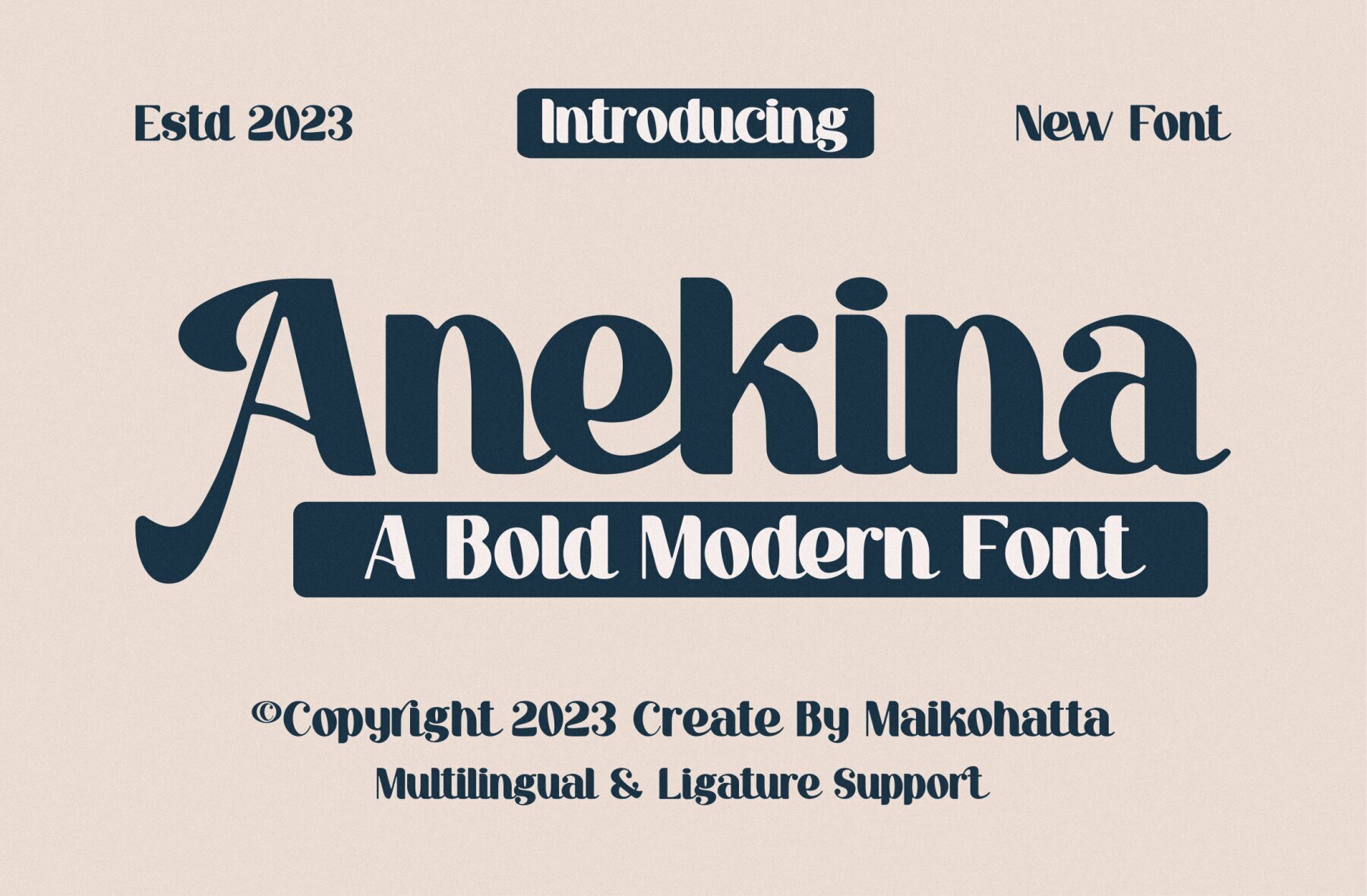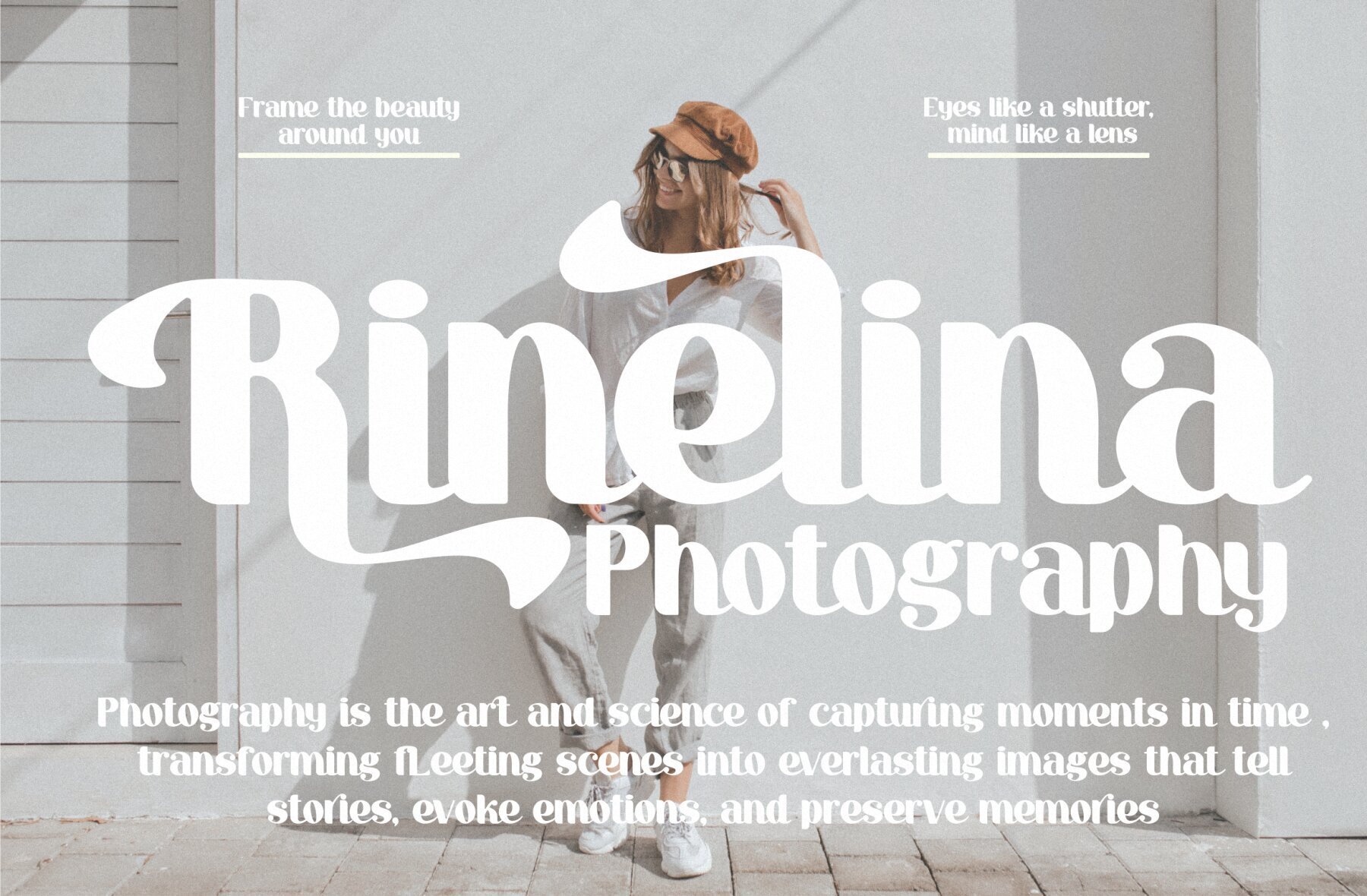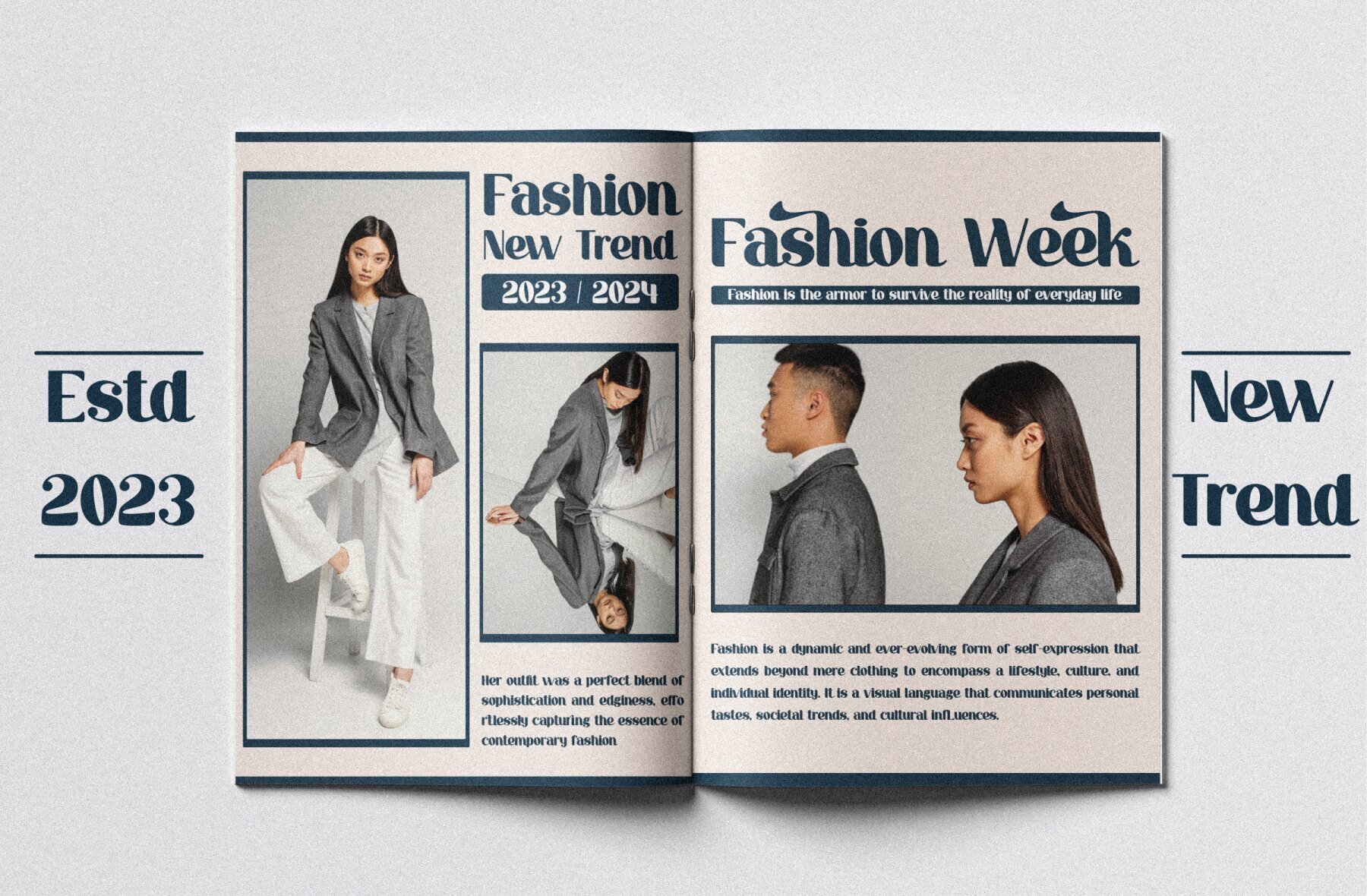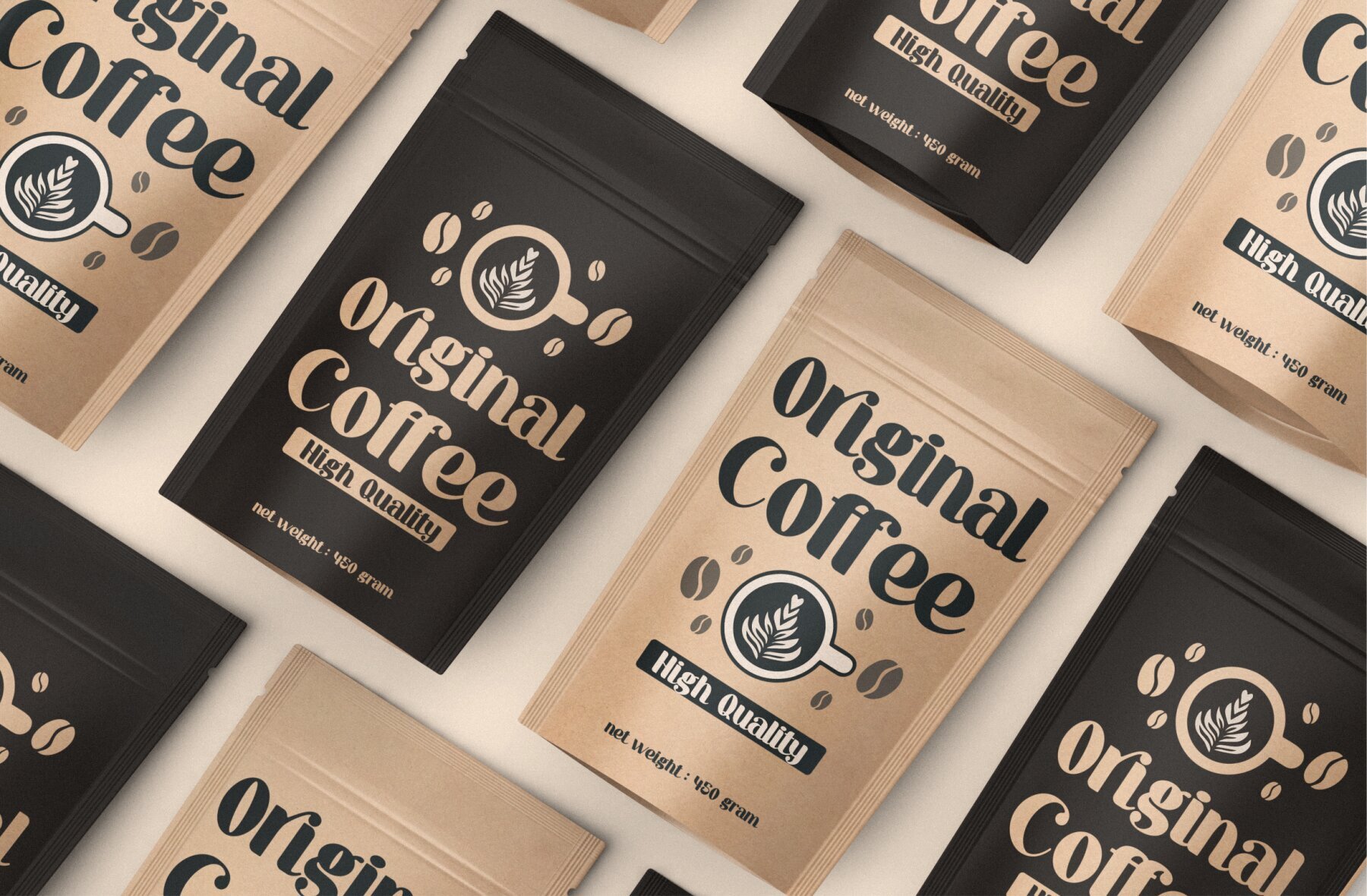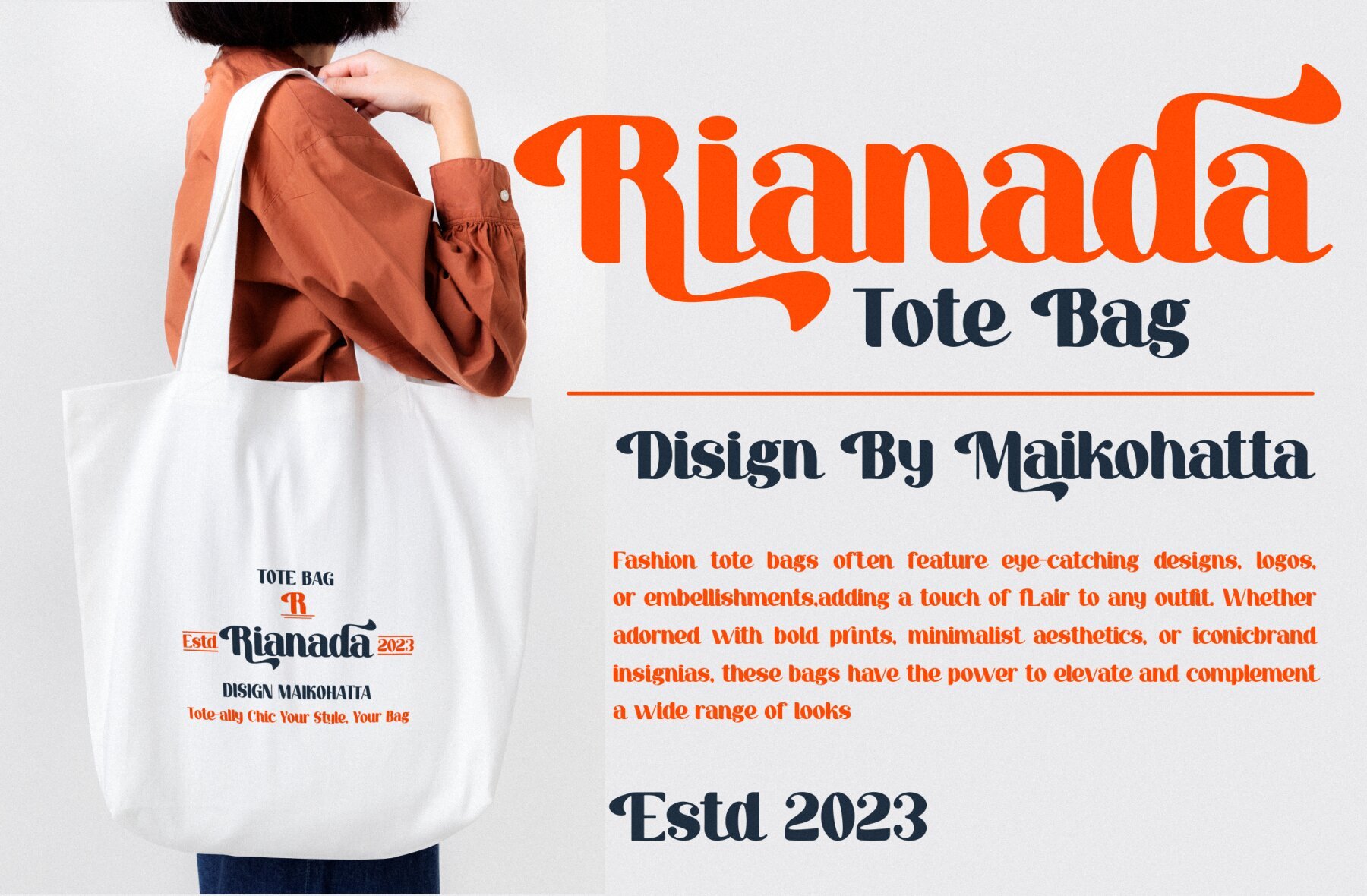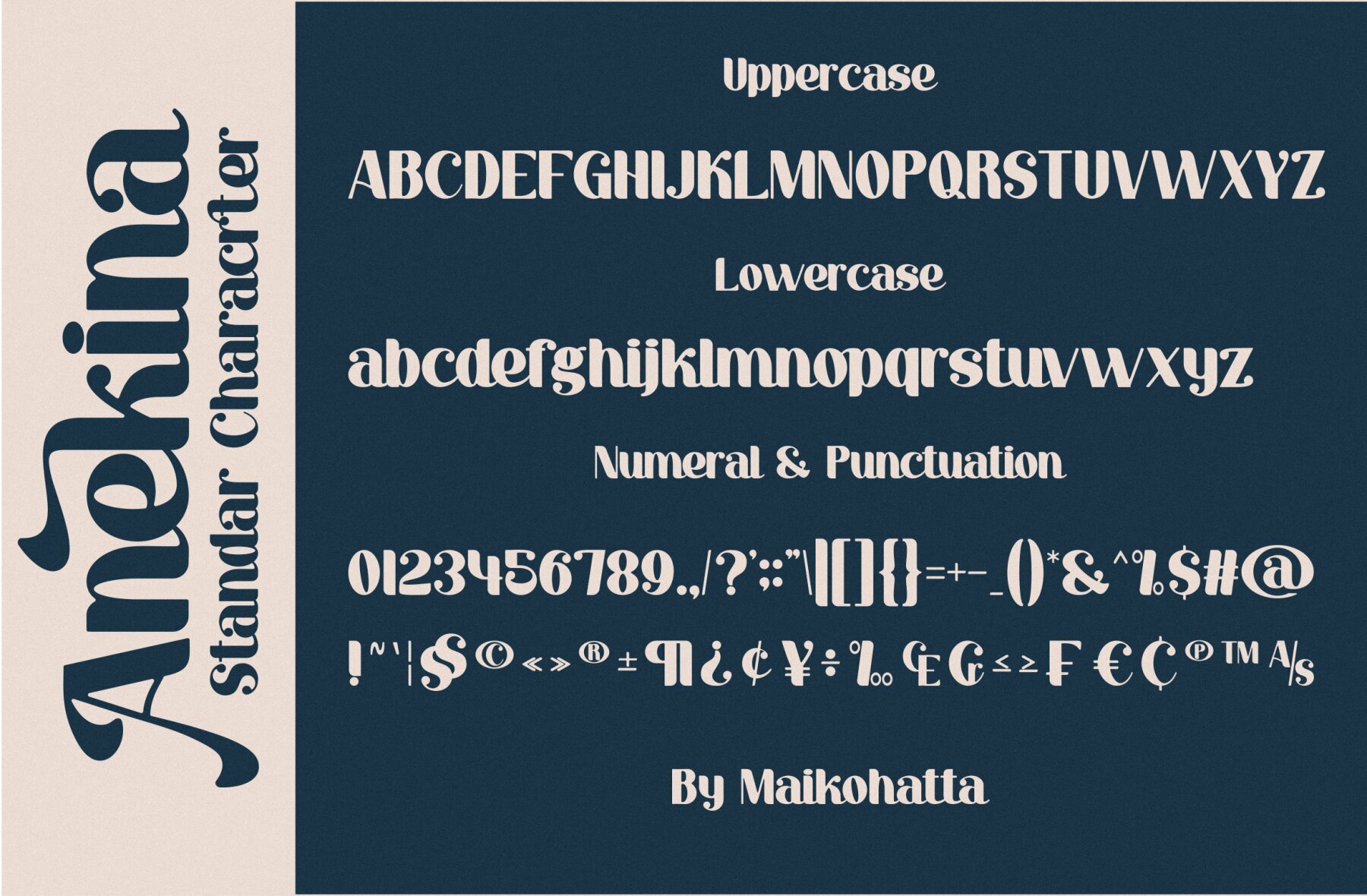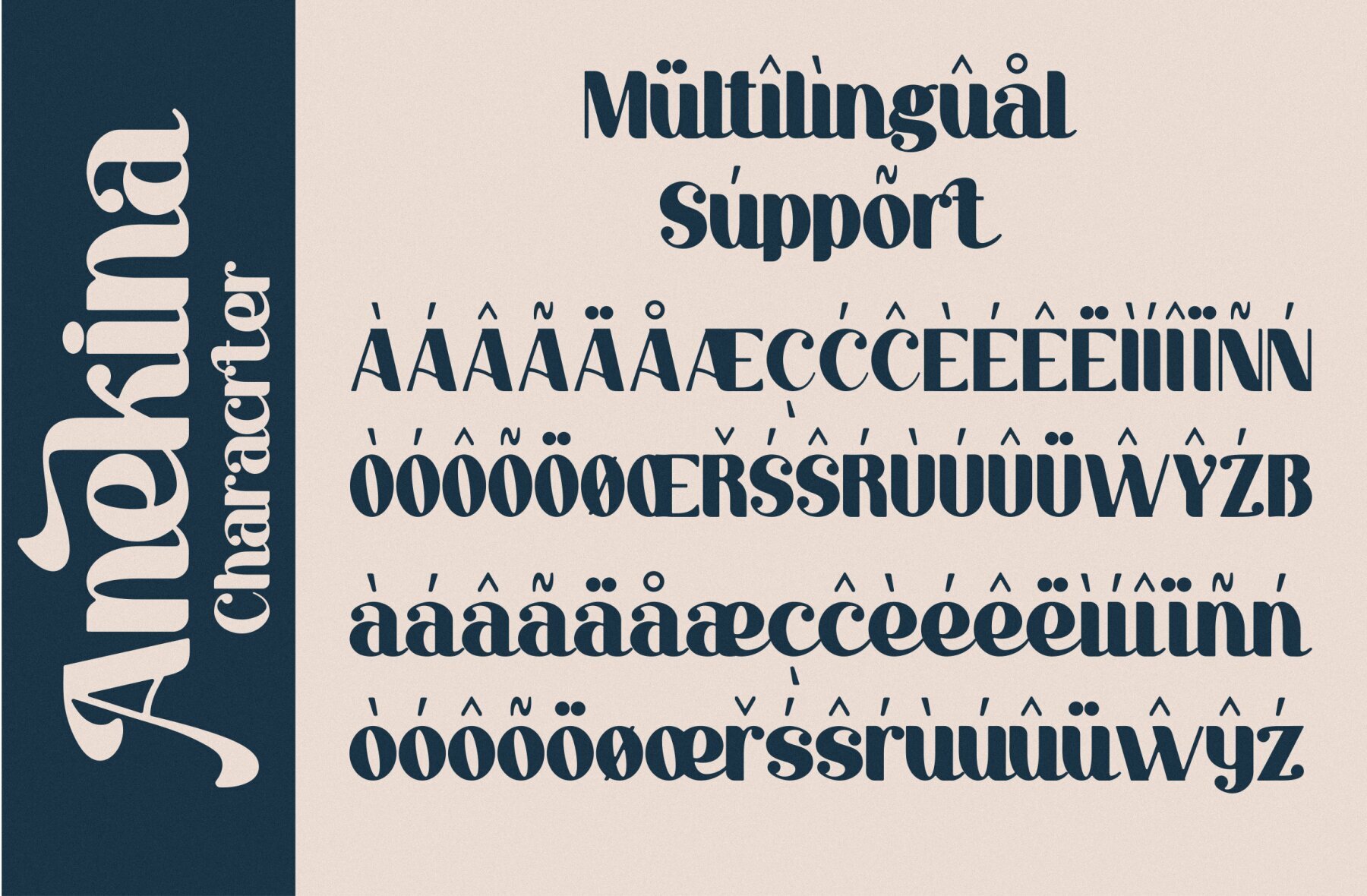
Anekina Font
Anekina Regular
Anekina Bold Modern Font is an assertive and authentic display typeface. Perfect for diverse branding projects including logos, templates, and esports designs, Anekina excels across various contexts with its striking appearance.Anekina: Bold Modern Display Font